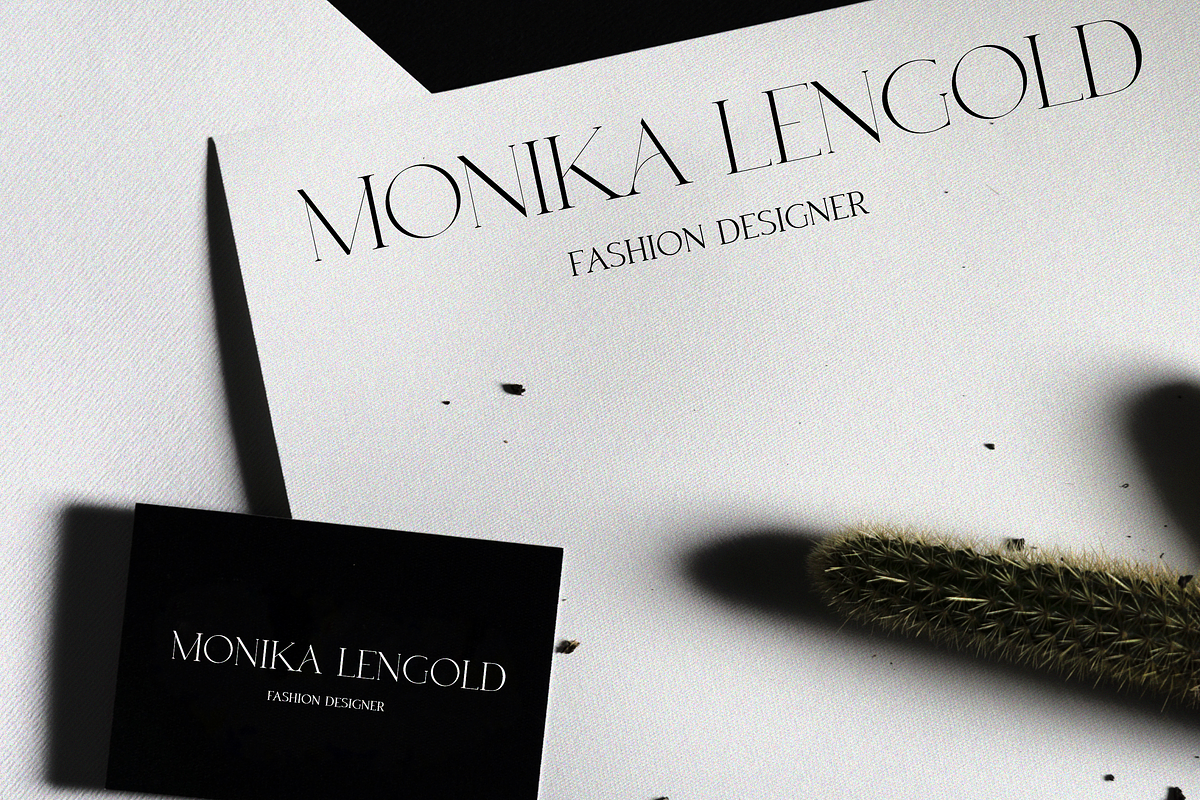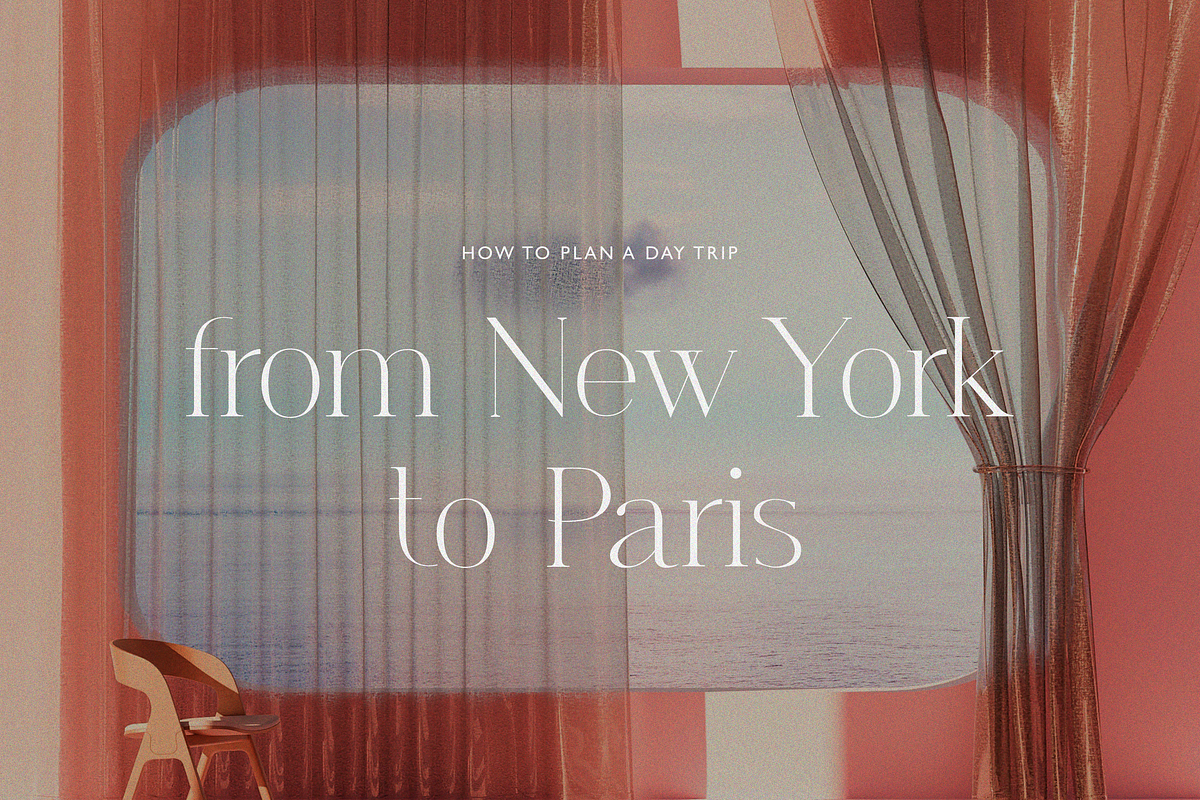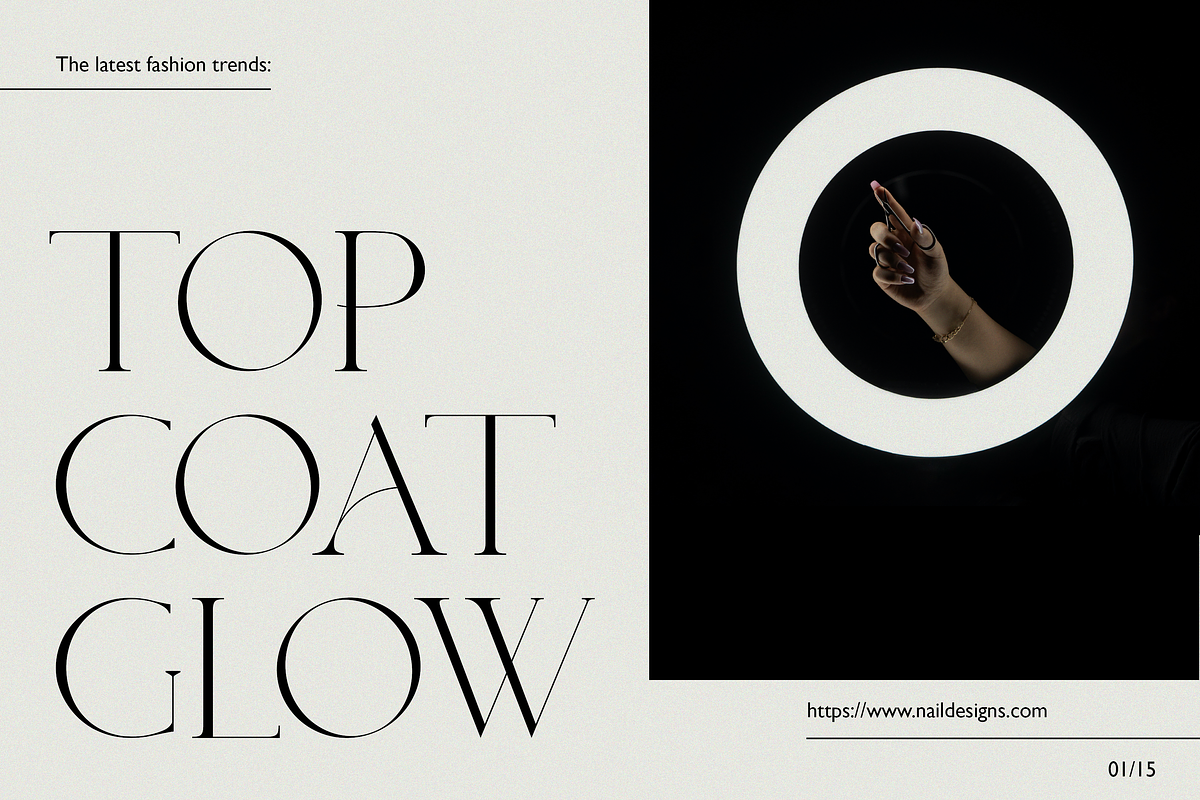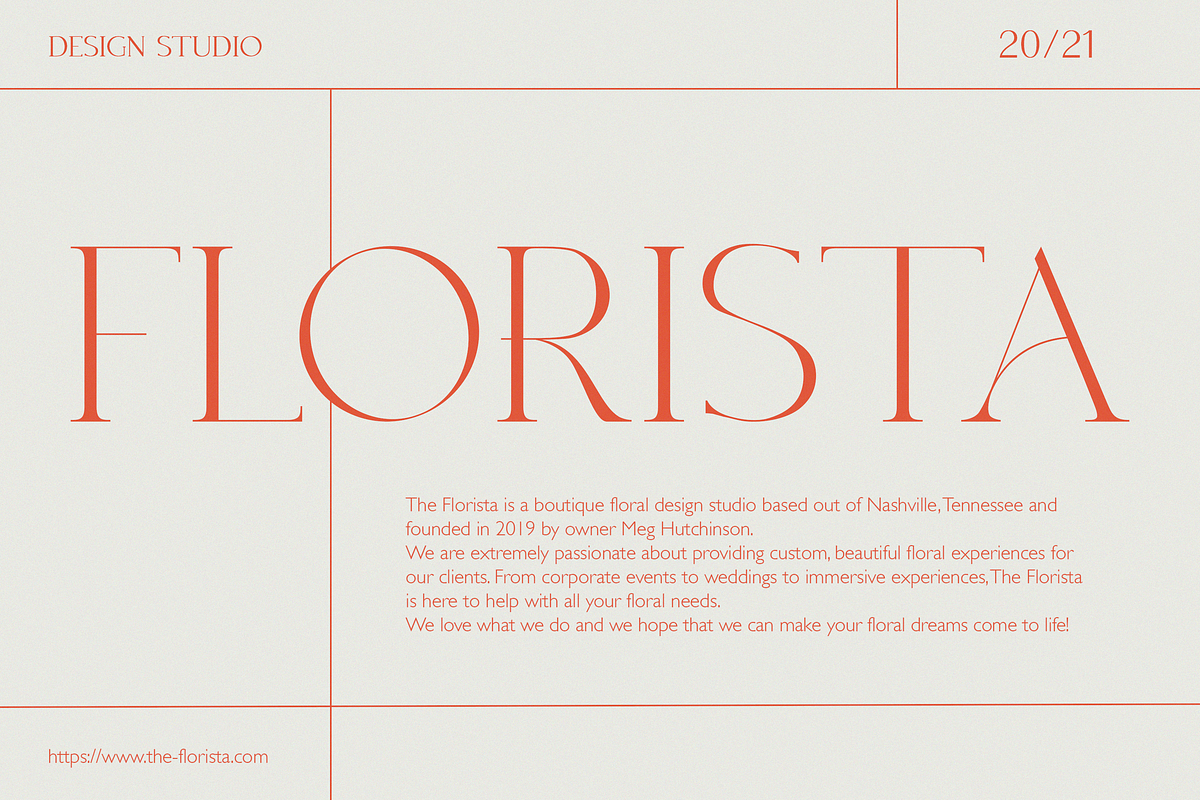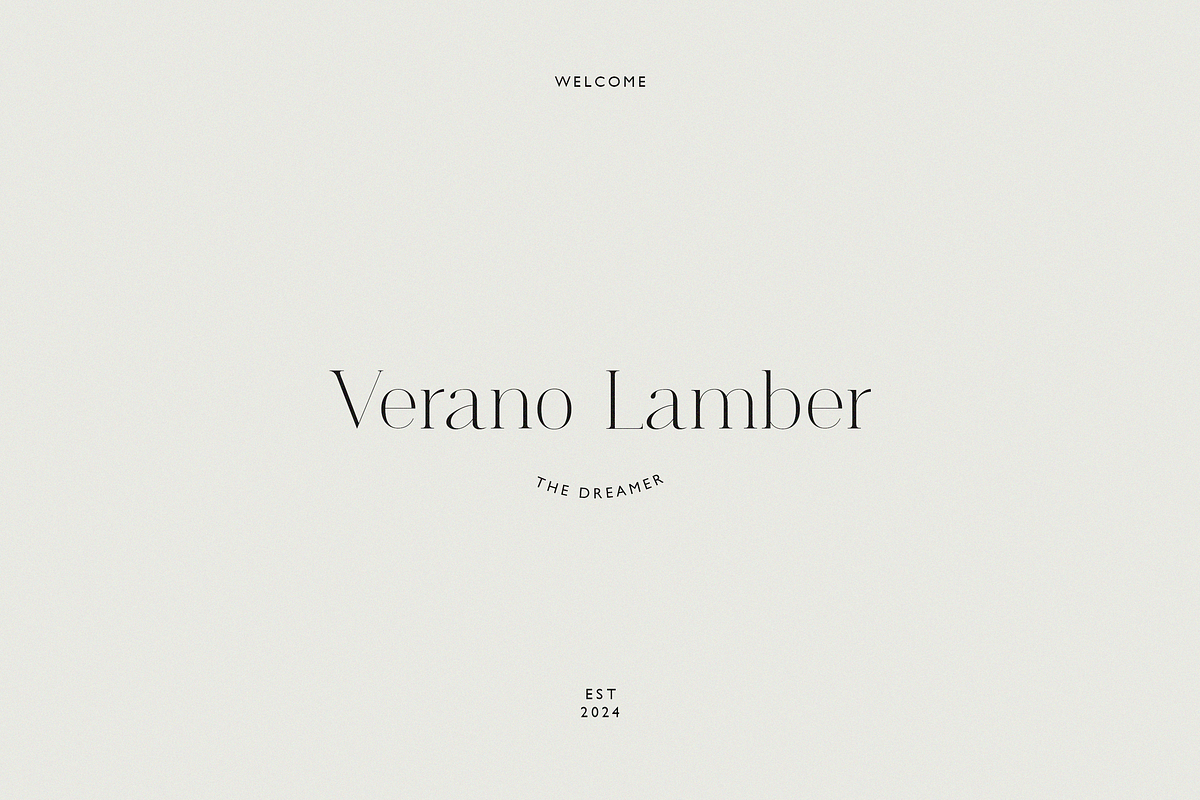
Afterglow Font
Afterglow is an elegant, fashion and classic font will be a perfect for invitations, logos or any branding design project.
• Upper/lowercase, numbers, punctuations.
• Multilingual support.